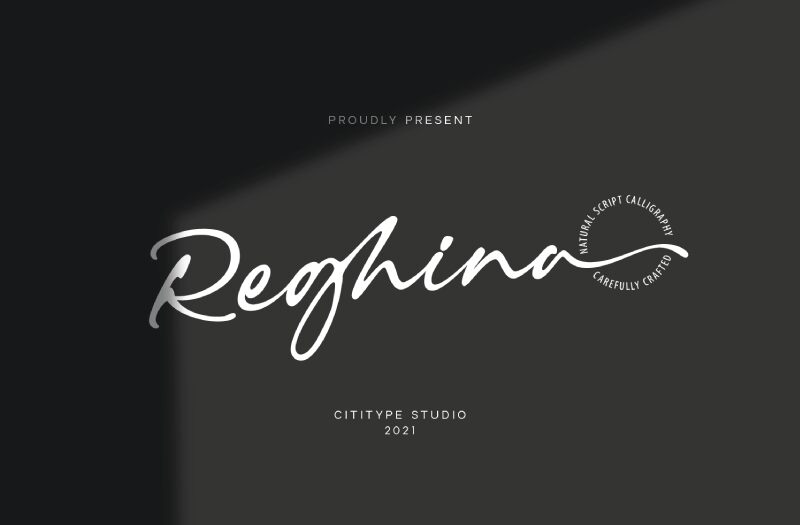
Reghina Regular
Reghina font is a sophisticated and flowing handwritten font designed by Cititype. This elegant typeface showcases a signature style that embodies a modern aesthetic with an expressive mood. Its refined and graceful design is perfect for projects requiring a personal touch.